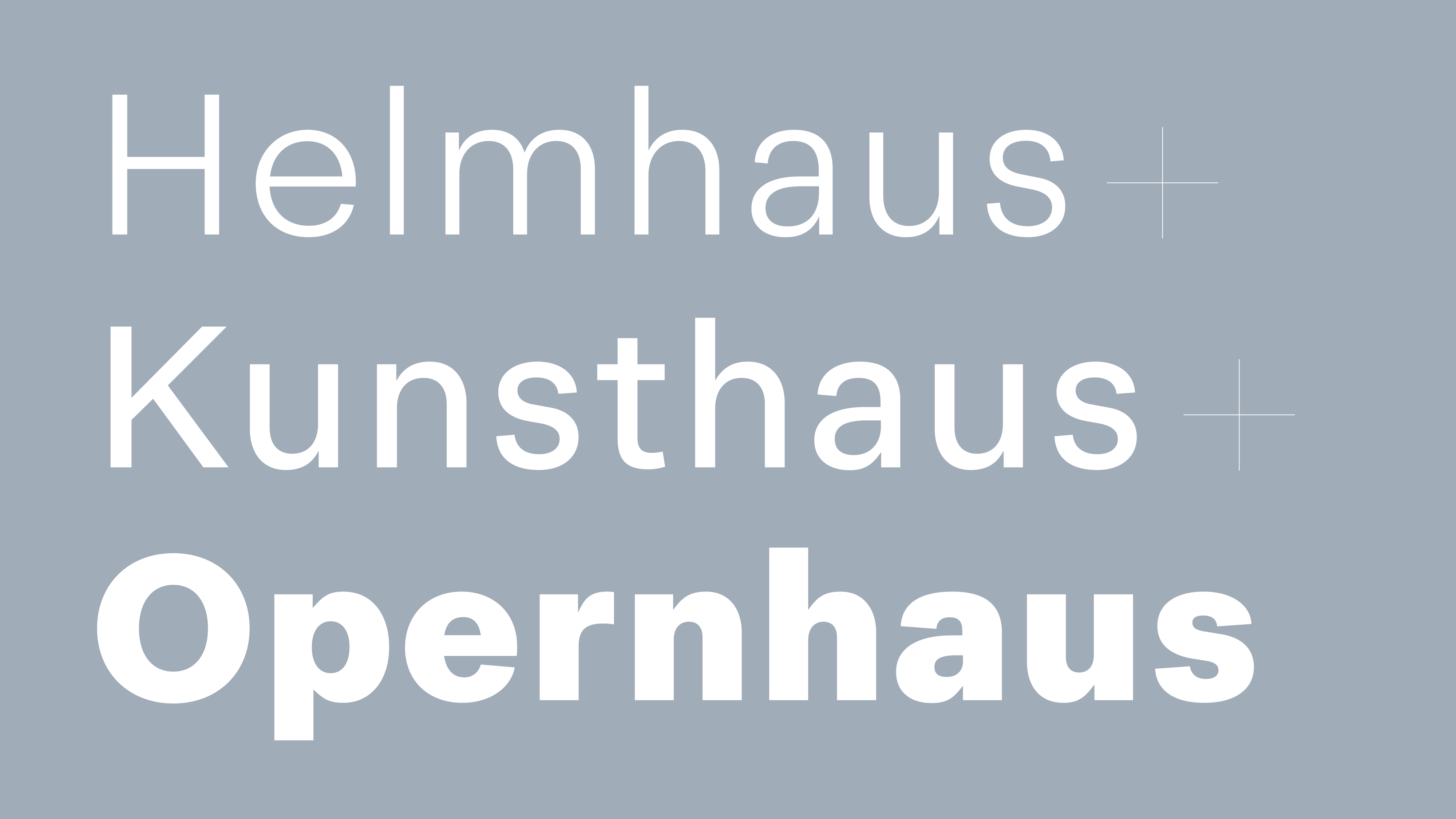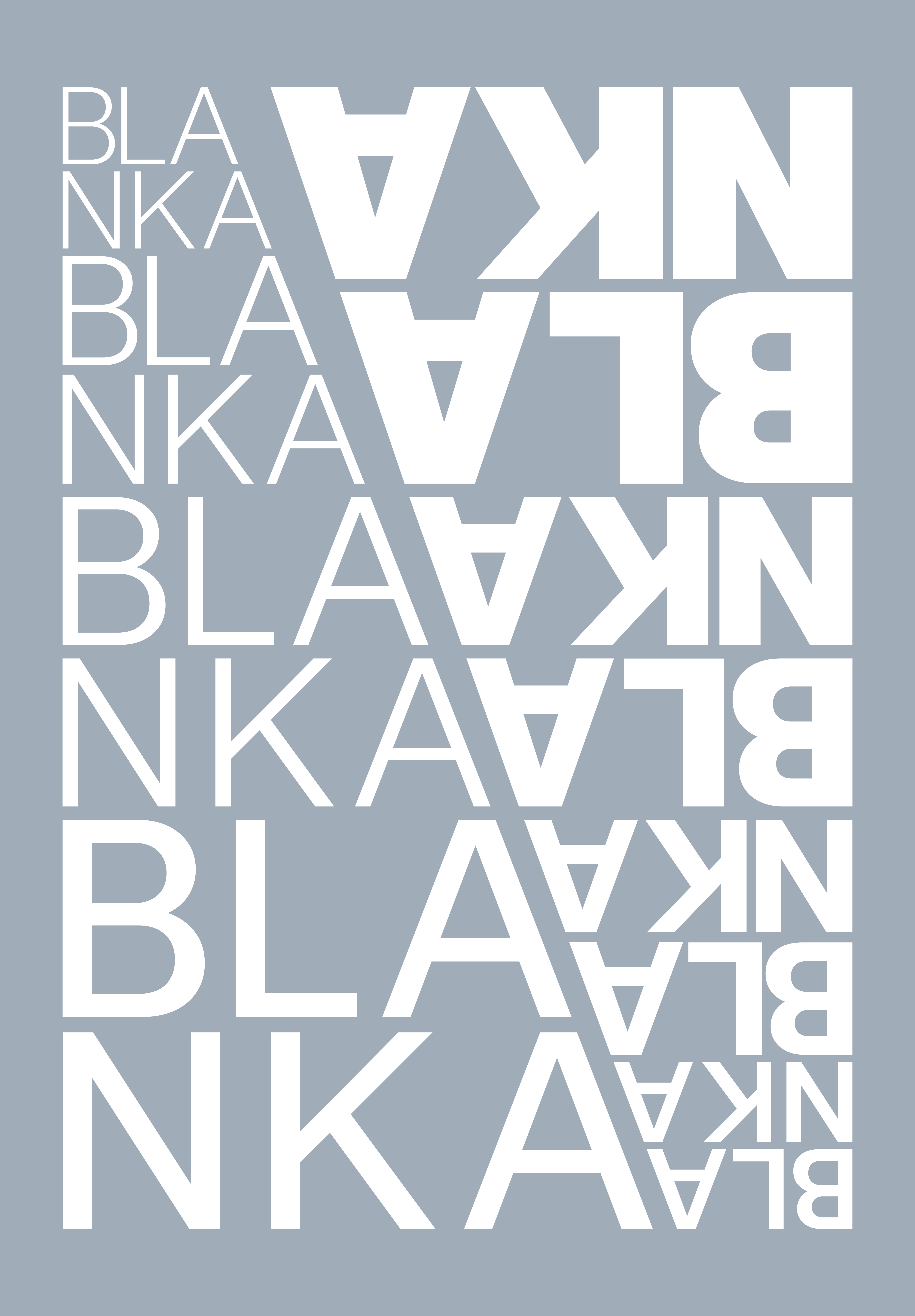
F37 Blanka®
Blanka is F37’s take on a clean, classic Swiss sans. Perfect for body copy, it’s economical, functional and very legible at small sizes.
Blanka is from the Brazilian jungle and has green skin.
Despite having the appearance of a wild man, Blanka is generally passive and docile, and is fond of family connections and friendships as well as children. Yet, when angered, Blanka attacks as though he was a wild animal let loose from a cage, ferociously attacking his opponents with predatorial rage. He has the ability to generate electricity.